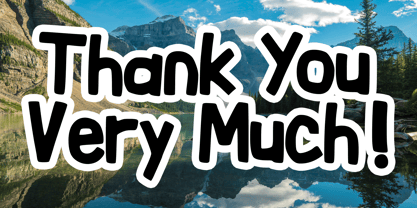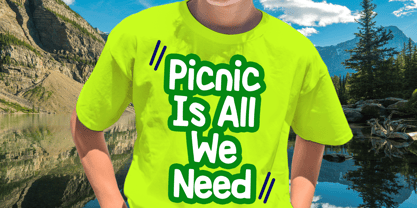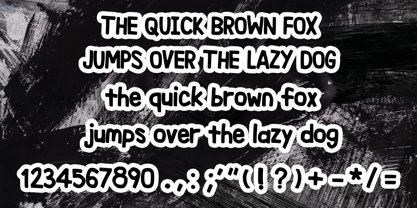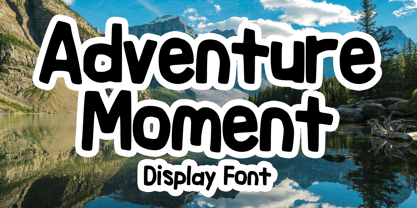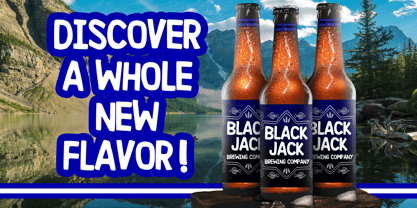
Adventure Moment
by Mvmet
The Adventure Moment Font Family was designed by Gabriel Valentinus and published by Mvmet. Adventure Moment contains 1 styles. More about this family
Adventure Moment is a charming and playful handlettered font, drawing inspiration from vintage western sign paintings. This font is perfect for elevating a diverse array of design projects, making it an excellent choice for stickers, t-shirt graphics, stunning logo designs, magazine and book covers, comics, cartoon illustrations, and much more. Embrace its incredibly versatile style to craft delightful and engaging designs that stand out!
Designers: Gabriel Valentinus
Foundry: Mvmet